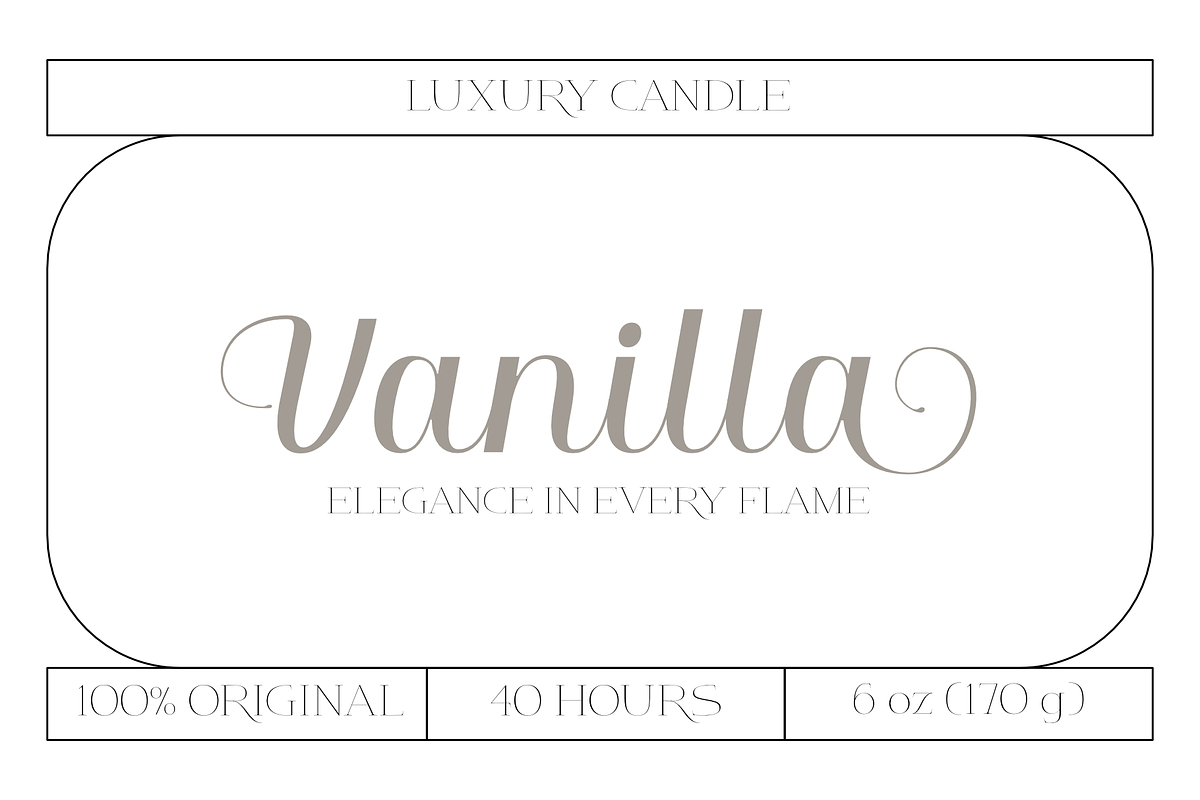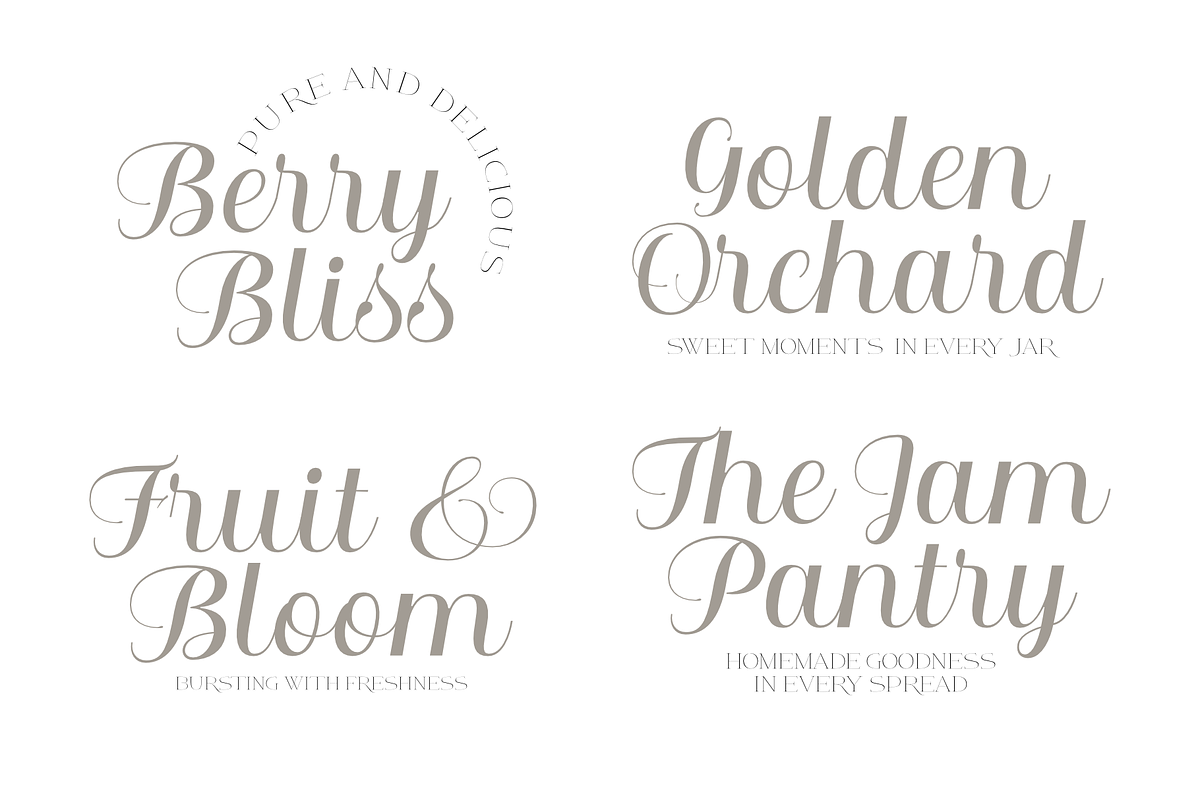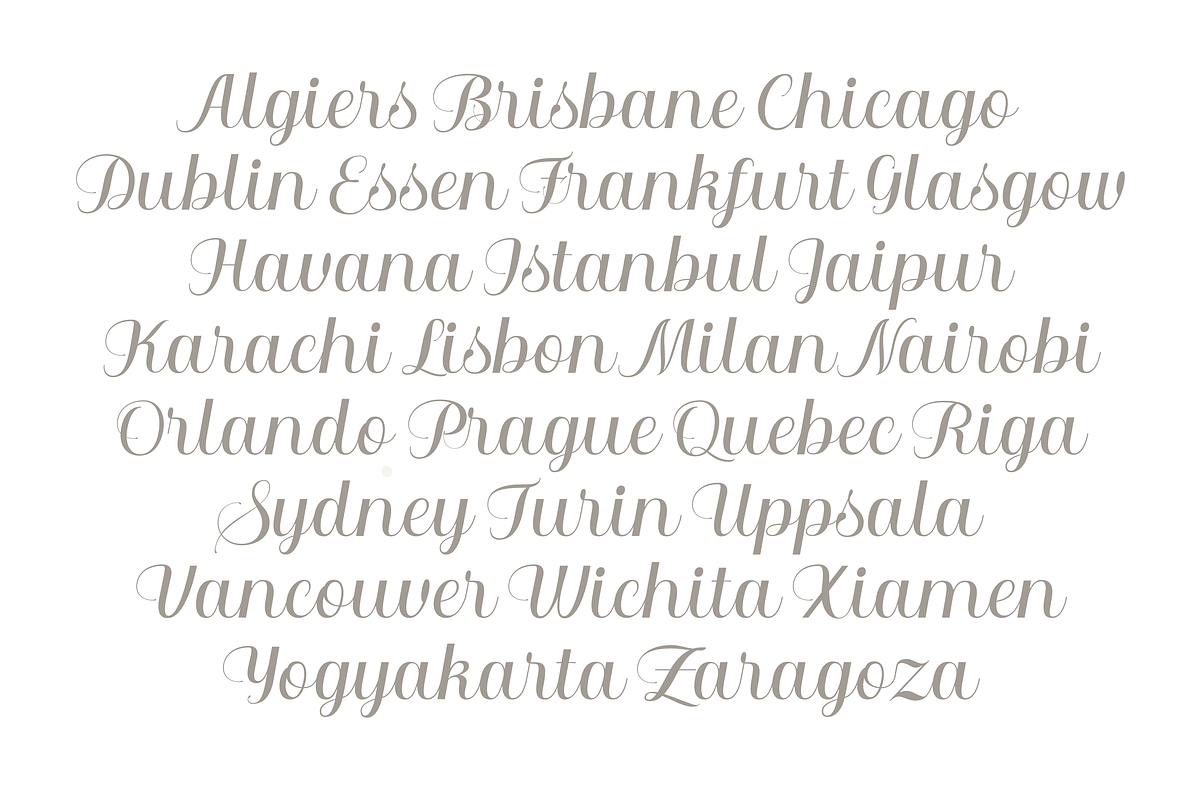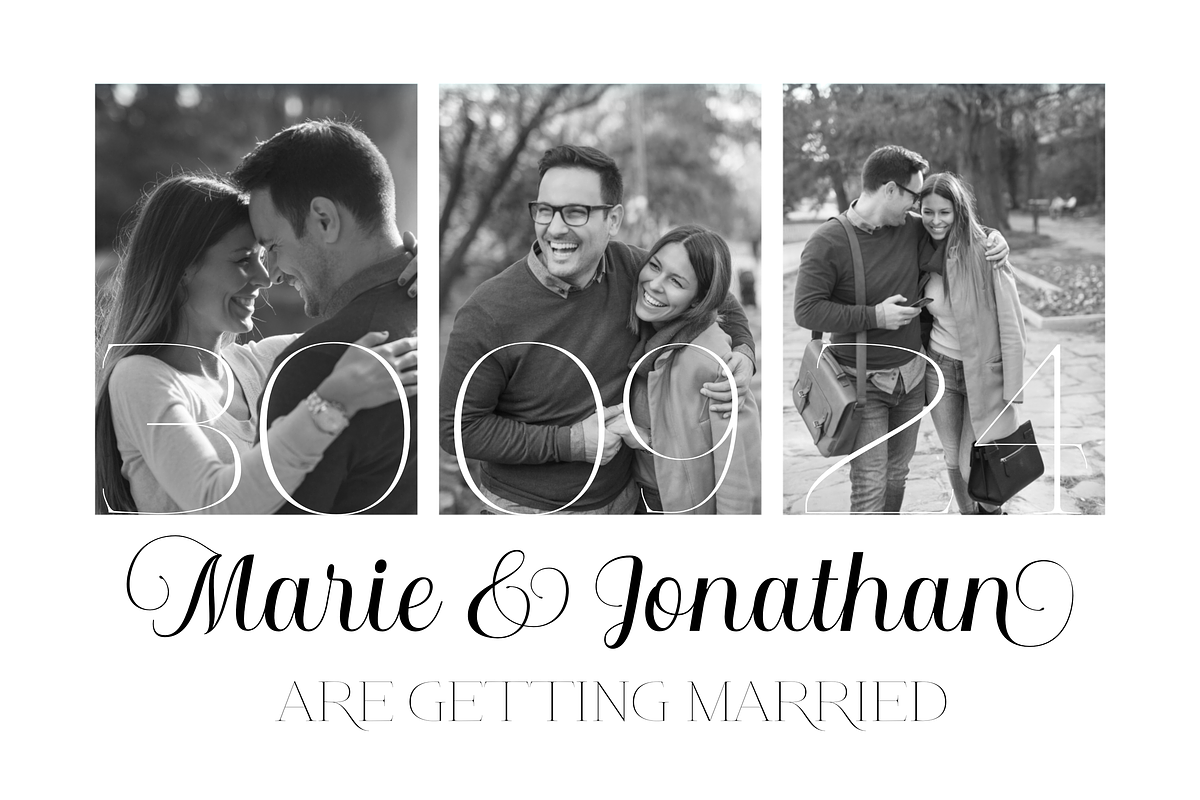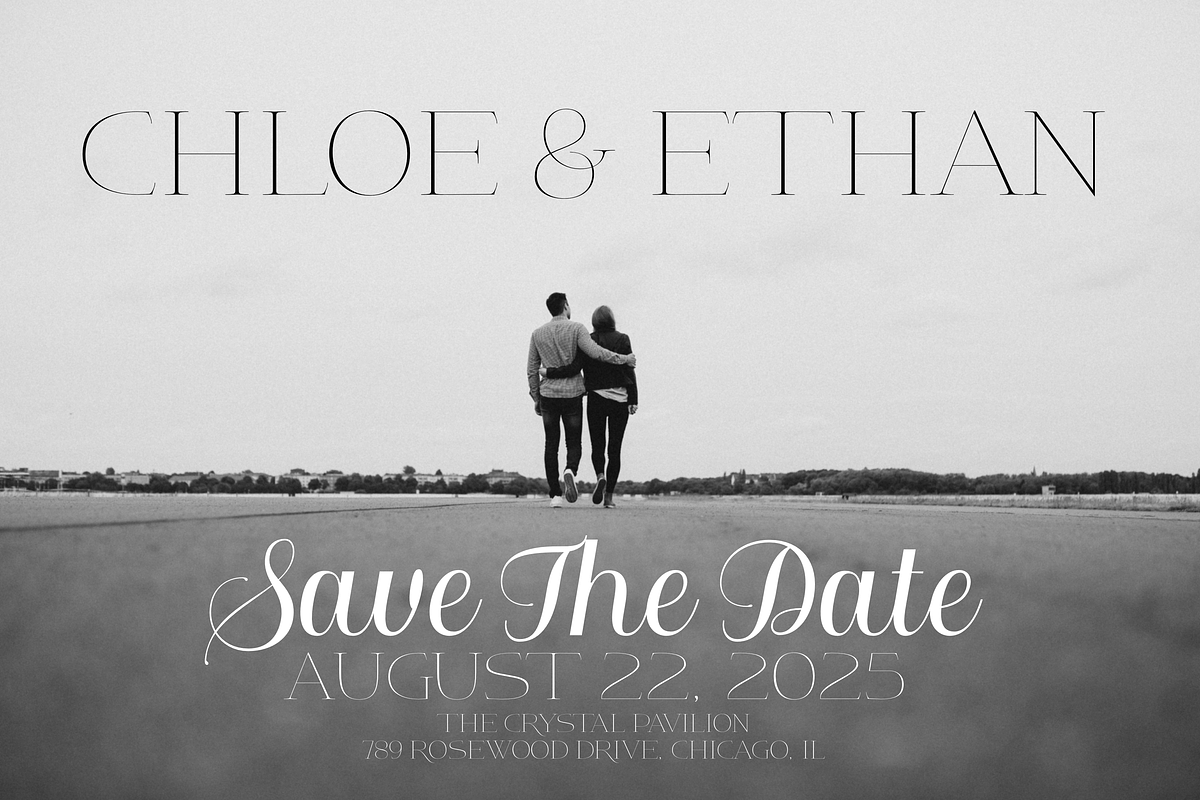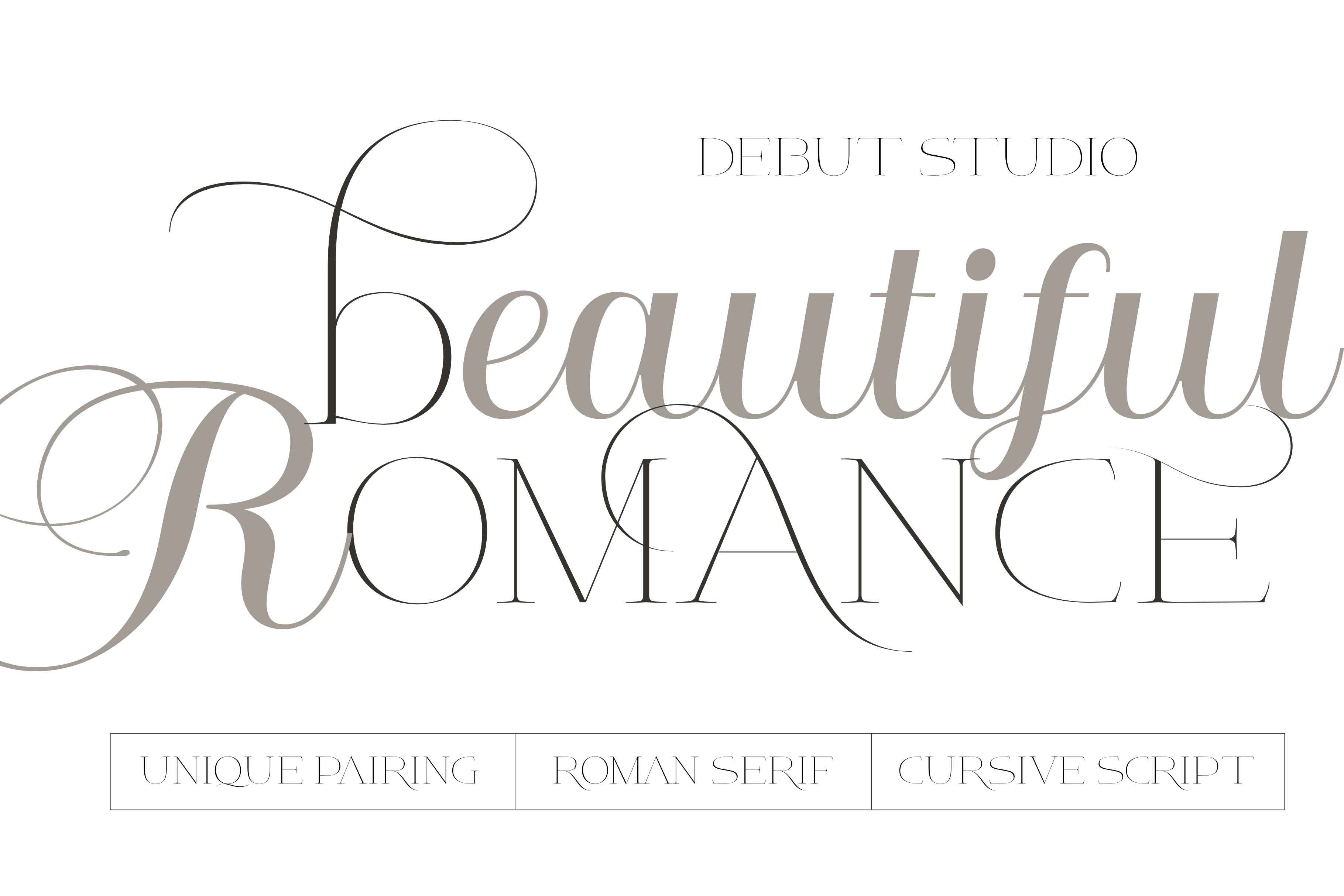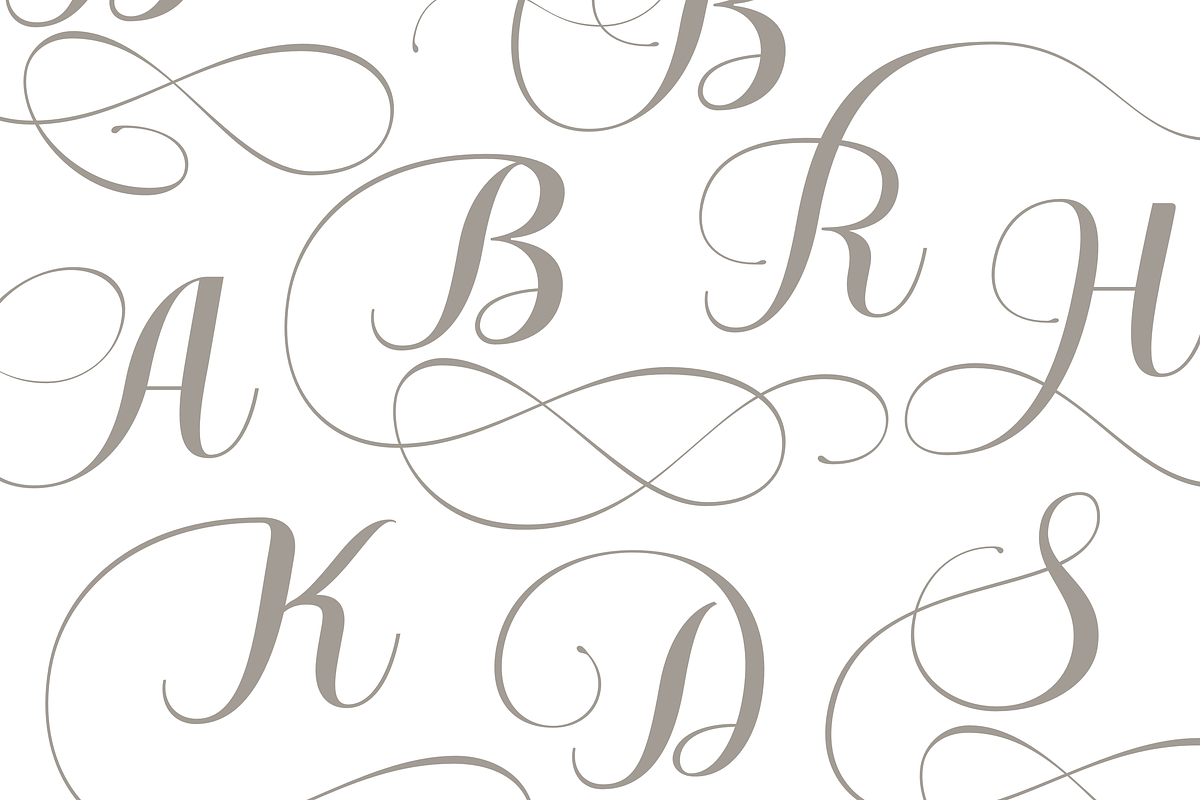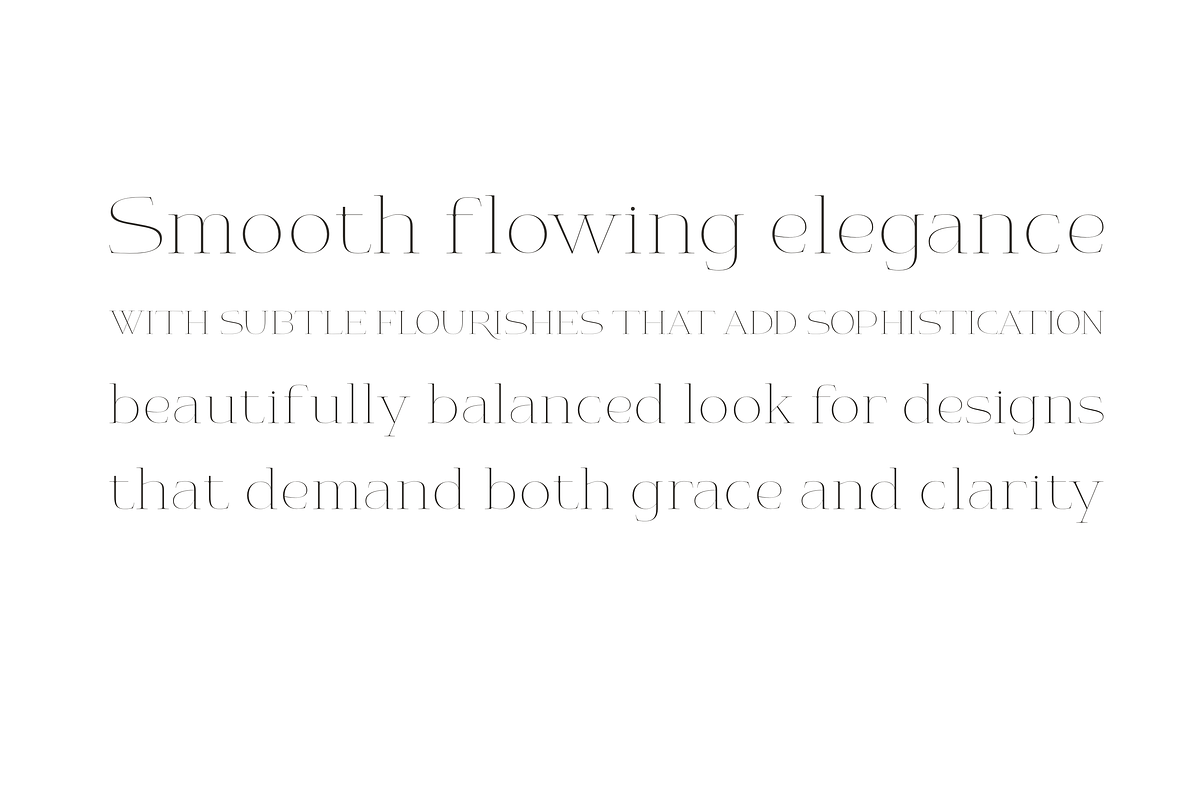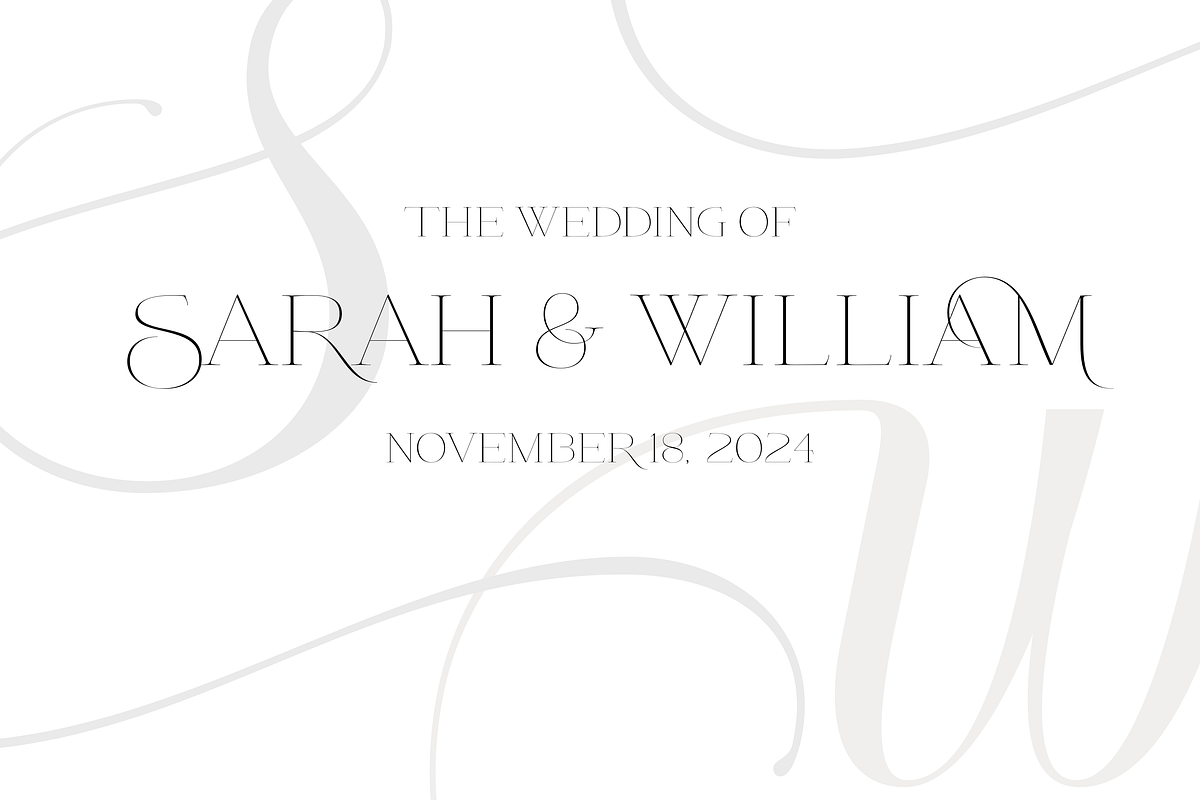
Beautiful Romance Font Duo
Introducing the Beautiful Romance Font Duo – a unique pairing of Cursive Font and Roman Serif styles, meticulously crafted to bring out the best in your creative projects. Designed to work in perfect harmony, these fonts offer an ideal blend for branding, invitations, editorial layouts, and more.
The Beautiful Romance Cursive font brings a smooth, flowing elegance inspired by classic calligraphy, with subtle flourishes that add sophistication and charm to every letter. It’s modern yet timeless, offering a beautifully balanced look for designs that demand both grace and clarity.
The Beautiful Romance Roman Serif font takes inspiration from traditional Roman typefaces, adding a fresh and refined edge for modern projects. Its strong, clean lines and classic serif details make it a versatile choice, equally perfect for bold headlines or sophisticated body text.
Together, this duo offers an effortlessly unique pairing – one that combines elegance with versatility, allowing you to create stunning displays, memorable logos, and cohesive brand identities. Whether used alone or together, the Beautiful Romance Font Duo adds a touch of romance and refinement, designed to leave a lasting impression.